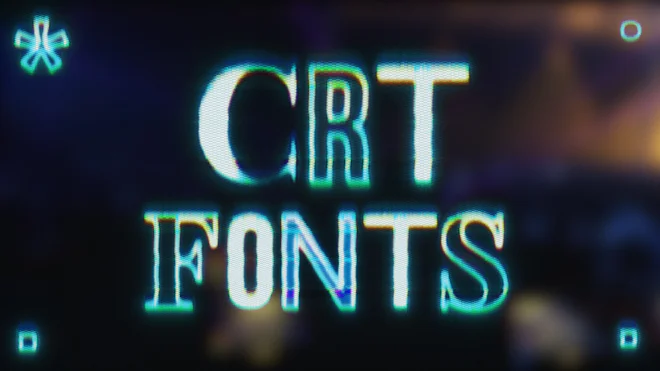
This stock motion graphics video pack includes 364 different clips of CRT alphabet letters, numbers and special symbols on black backgrounds. Included are letters A-Z, numbers 0-9 and special symbols, all isolated on individual looping clips for stacking and overlaying.